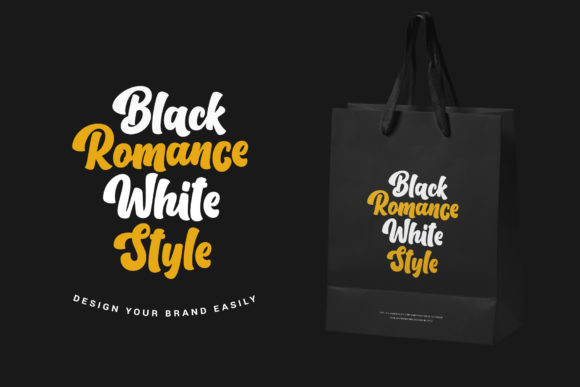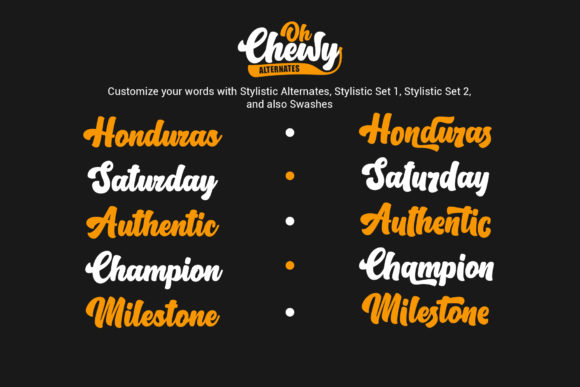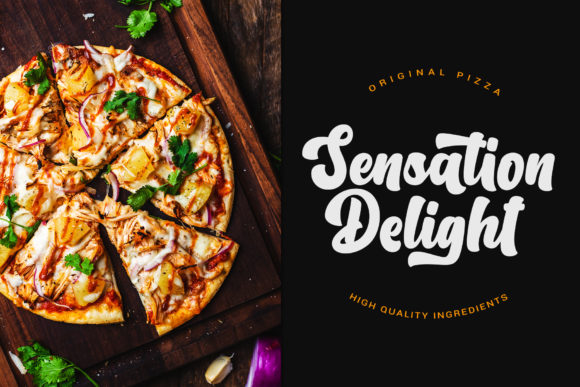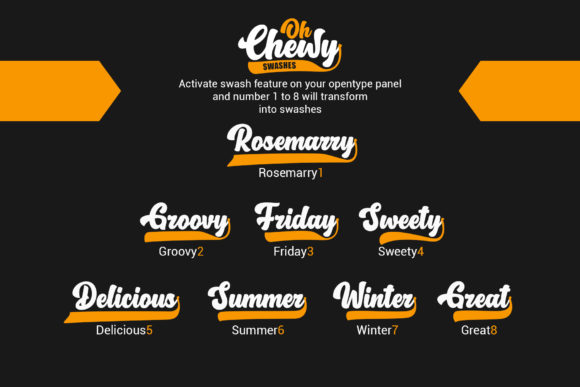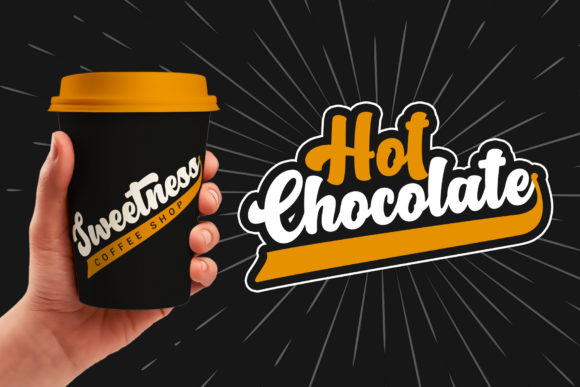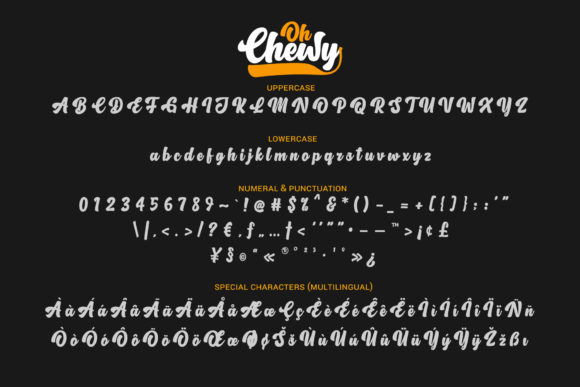
Introduction to Oh Chewy Font Font
Fonts play a crucial role in design, and the Oh Chewy Font font is a typeface that brings both character and versatility to any project. Whether you’re working on a branding project, a website, or a print design, the Oh Chewy Font font offers a unique style that can elevate your work.
Oh Chewy is a sweet and bold script font with alternates and lovely swashes.
It has an incredible vintage aesthetic Use it to add that special retro touch to any design idea you can think of.
Key Features of Oh Chewy Font Font
Why Choose Oh Chewy Font Font?
The Oh Chewy Font font is more than just a typeface – it’s a design tool that helps you communicate your message with style and clarity. Its unique character set and versatile design make it suitable for a wide range of applications, from elegant invitations to bold headlines.
With its carefully crafted letterforms and balanced proportions, the Oh Chewy Font font ensures readability and visual appeal across all mediums.
What makes Oh Chewy Font font special?
The Oh Chewy Font font stands out with its unique design, exceptional readability, and versatility across various design applications.